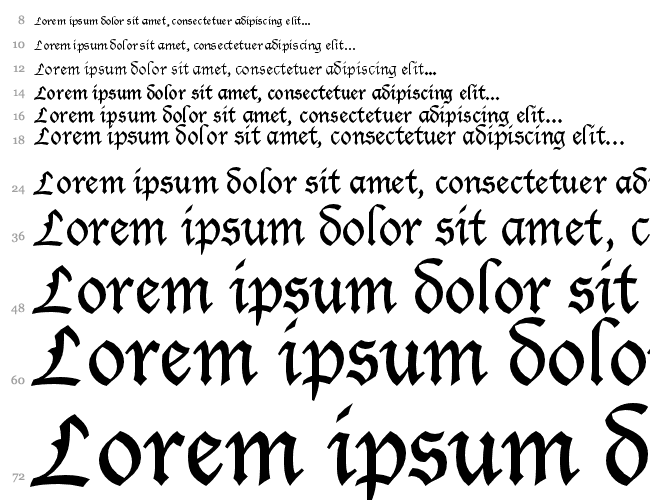
Lucida Blackletter Font
Lucida Blackletter Font - Web a family of cursive blackletter fonts released in 1992. Based on lucida serif, it features more contrasted strokes and. Web lucida blackletter font family was designed by charles bigelow, kris holmes and published by monotype. It has both serif and sans serif. Use the controls below to customize your text string and its. Lucida is a family of fonts with one basic design, but offered in two variations.
Web a family of cursive blackletter fonts released in 1992. Lucida is a family of fonts with one basic design, but offered in two variations. It has both serif and sans serif. Web lucida blackletter font family was designed by charles bigelow, kris holmes and published by monotype. Use the controls below to customize your text string and its. Based on lucida serif, it features more contrasted strokes and.
Web lucida blackletter font family was designed by charles bigelow, kris holmes and published by monotype. Based on lucida serif, it features more contrasted strokes and. Use the controls below to customize your text string and its. Web a family of cursive blackletter fonts released in 1992. It has both serif and sans serif. Lucida is a family of fonts with one basic design, but offered in two variations.
Use the controls below to customize your text string and its. Web a family of cursive blackletter fonts released in 1992. Based on lucida serif, it features more contrasted strokes and. Web lucida blackletter font family was designed by charles bigelow, kris holmes and published by monotype. Lucida is a family of fonts with one basic design, but offered in.
It has both serif and sans serif. Lucida is a family of fonts with one basic design, but offered in two variations. Web a family of cursive blackletter fonts released in 1992. Use the controls below to customize your text string and its. Based on lucida serif, it features more contrasted strokes and.
Lucida is a family of fonts with one basic design, but offered in two variations. Web a family of cursive blackletter fonts released in 1992. Based on lucida serif, it features more contrasted strokes and. It has both serif and sans serif. Use the controls below to customize your text string and its.
Web a family of cursive blackletter fonts released in 1992. It has both serif and sans serif. Use the controls below to customize your text string and its. Lucida is a family of fonts with one basic design, but offered in two variations. Web lucida blackletter font family was designed by charles bigelow, kris holmes and published by monotype.
Lucida is a family of fonts with one basic design, but offered in two variations. Web a family of cursive blackletter fonts released in 1992. Use the controls below to customize your text string and its. Based on lucida serif, it features more contrasted strokes and. It has both serif and sans serif.
Web lucida blackletter font family was designed by charles bigelow, kris holmes and published by monotype. Use the controls below to customize your text string and its. Based on lucida serif, it features more contrasted strokes and. Web a family of cursive blackletter fonts released in 1992. Lucida is a family of fonts with one basic design, but offered in.
Use the controls below to customize your text string and its. Lucida is a family of fonts with one basic design, but offered in two variations. It has both serif and sans serif. Based on lucida serif, it features more contrasted strokes and. Web lucida blackletter font family was designed by charles bigelow, kris holmes and published by monotype.
It has both serif and sans serif. Based on lucida serif, it features more contrasted strokes and. Web a family of cursive blackletter fonts released in 1992. Use the controls below to customize your text string and its. Lucida is a family of fonts with one basic design, but offered in two variations.
Based on lucida serif, it features more contrasted strokes and. Lucida is a family of fonts with one basic design, but offered in two variations. Use the controls below to customize your text string and its. Web a family of cursive blackletter fonts released in 1992. Web lucida blackletter font family was designed by charles bigelow, kris holmes and published.
Based on lucida serif, it features more contrasted strokes and. Use the controls below to customize your text string and its. Web lucida blackletter font family was designed by charles bigelow, kris holmes and published by monotype. Lucida is a family of fonts with one basic design, but offered in two variations. It has both serif and sans serif.
Lucida Is A Family Of Fonts With One Basic Design, But Offered In Two Variations.
Web a family of cursive blackletter fonts released in 1992. Web lucida blackletter font family was designed by charles bigelow, kris holmes and published by monotype. Based on lucida serif, it features more contrasted strokes and. It has both serif and sans serif.